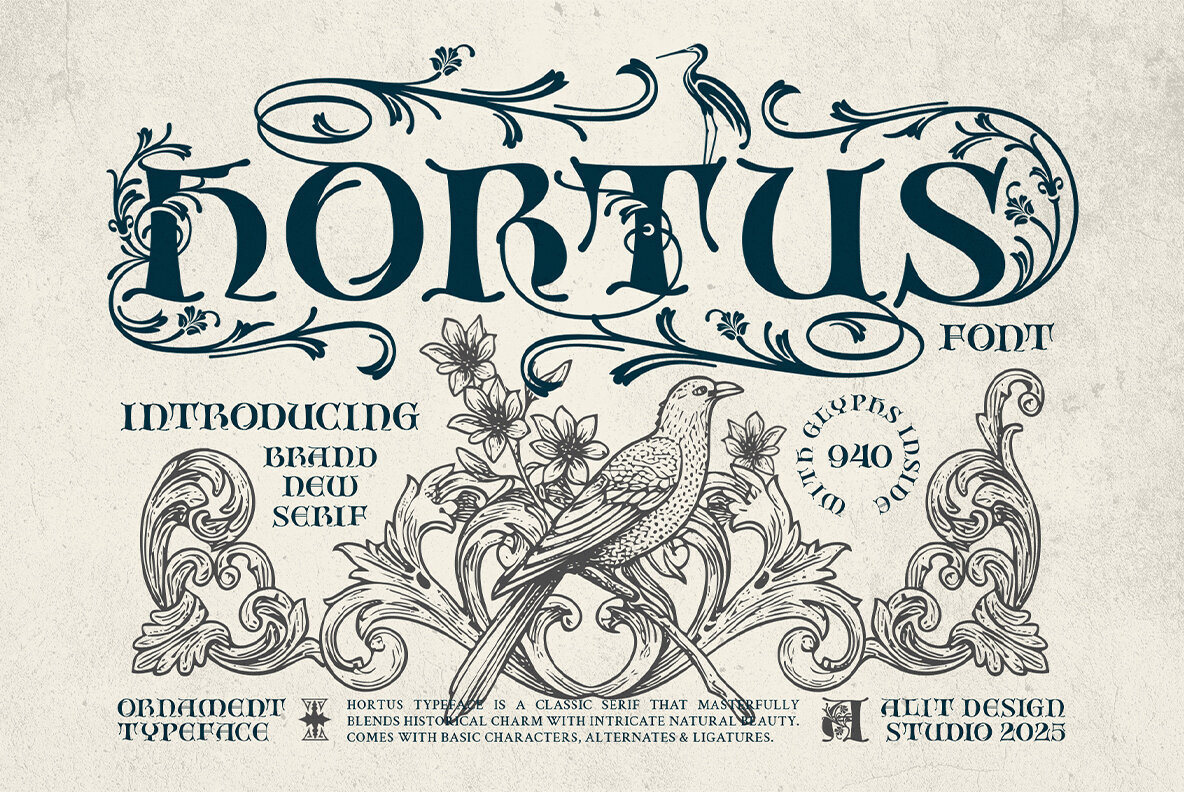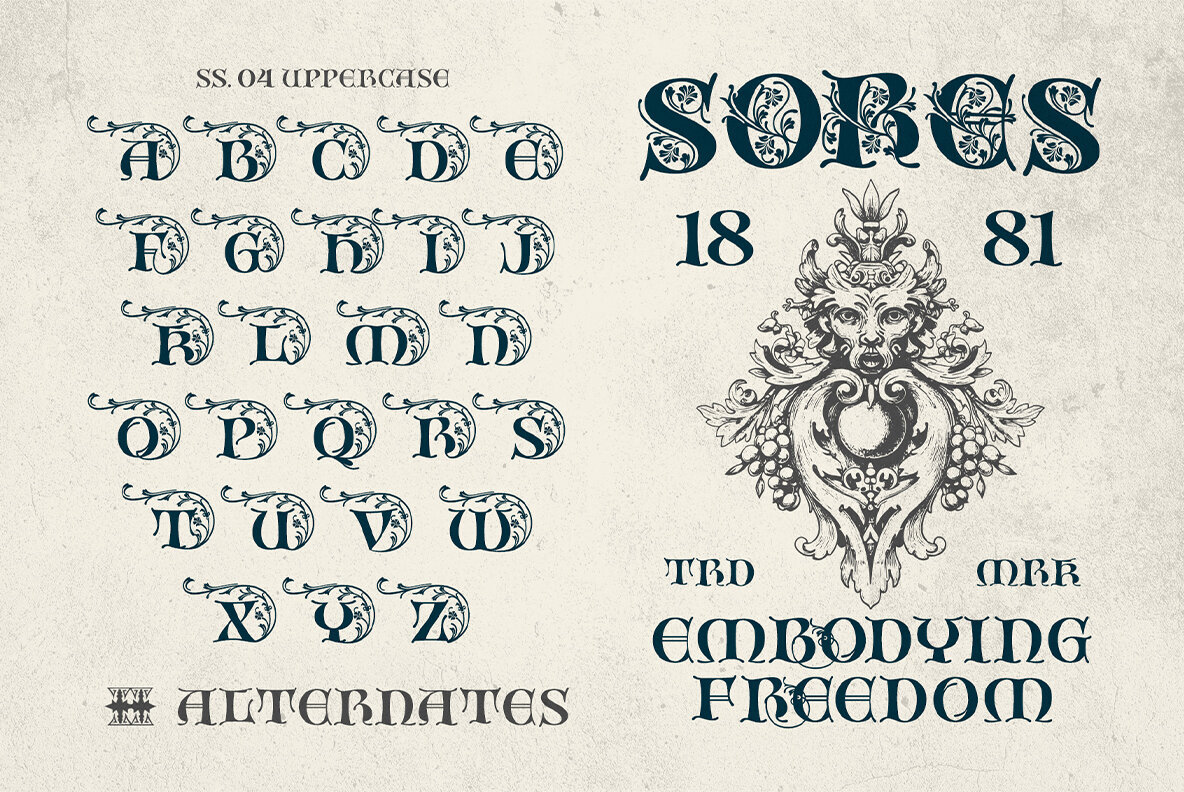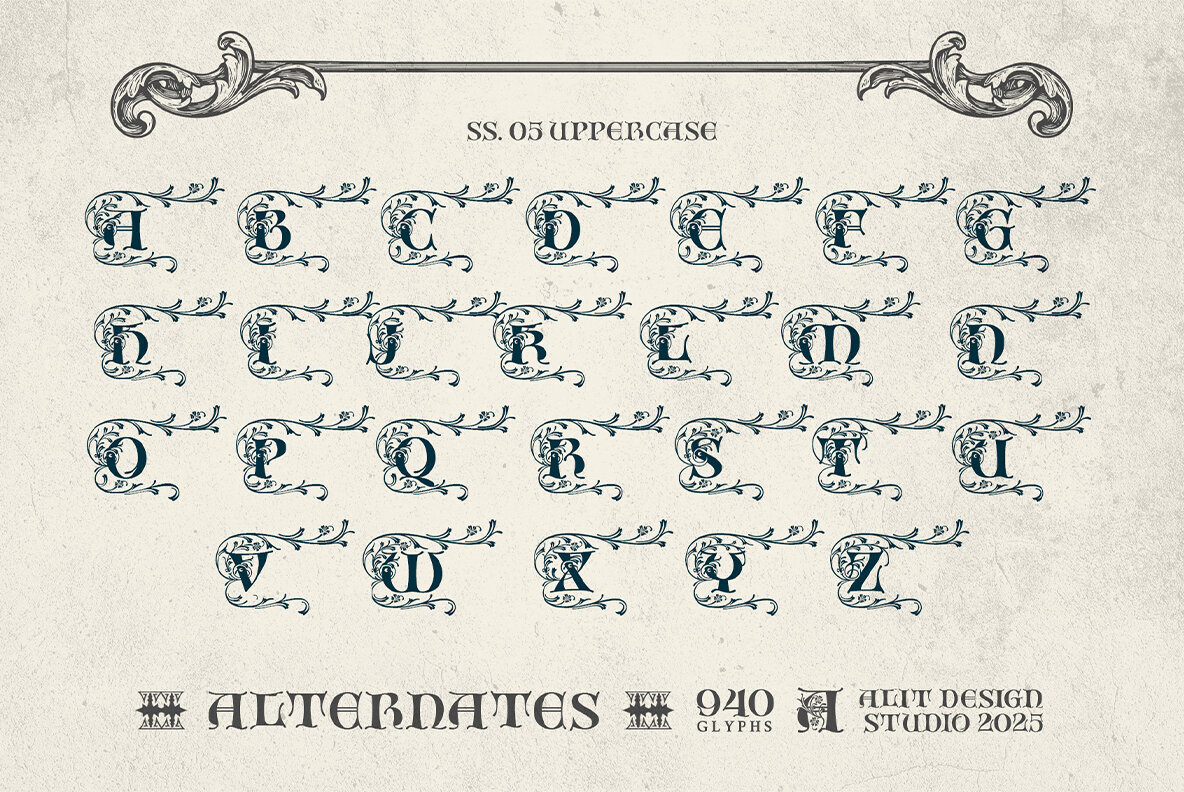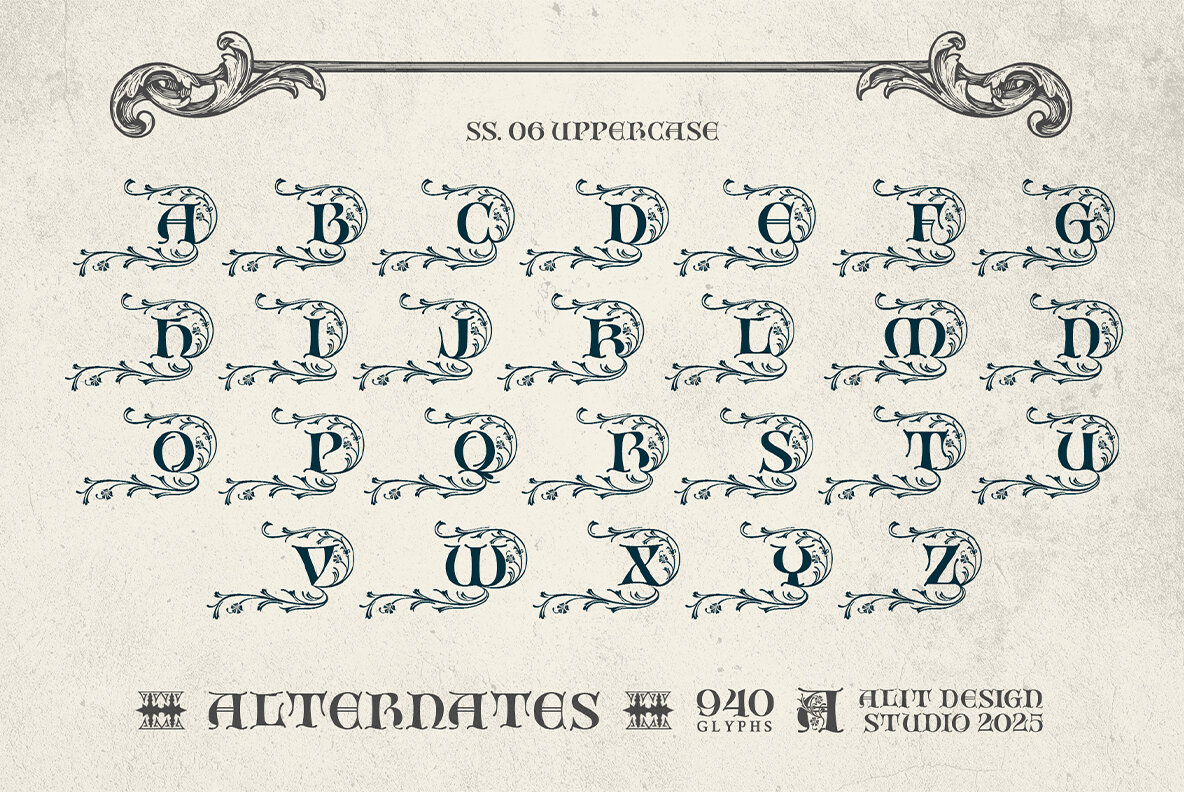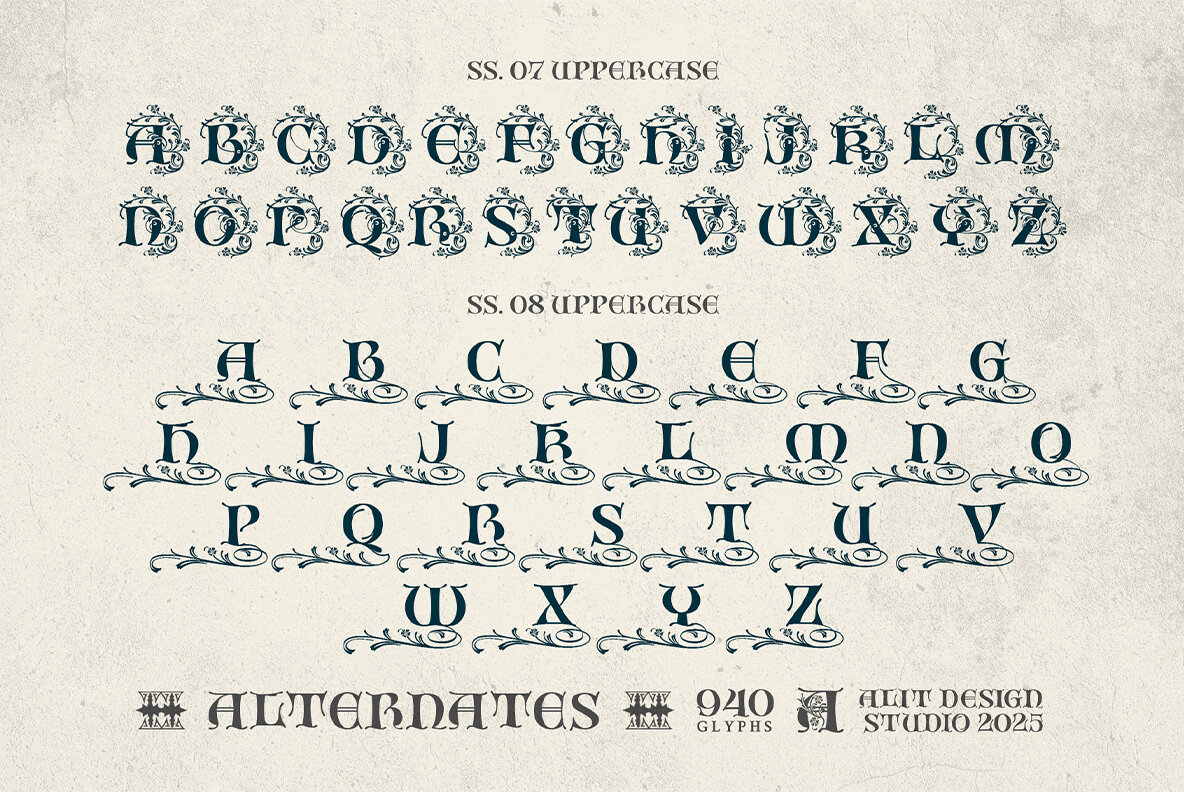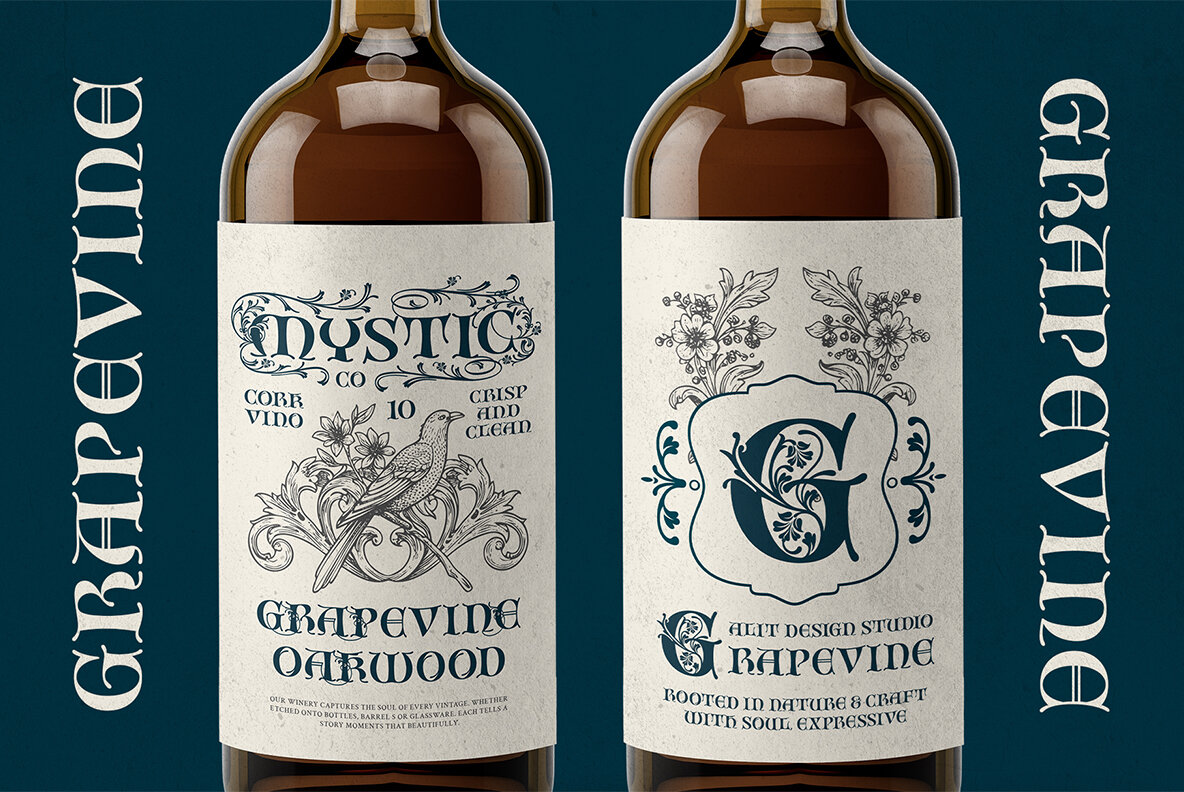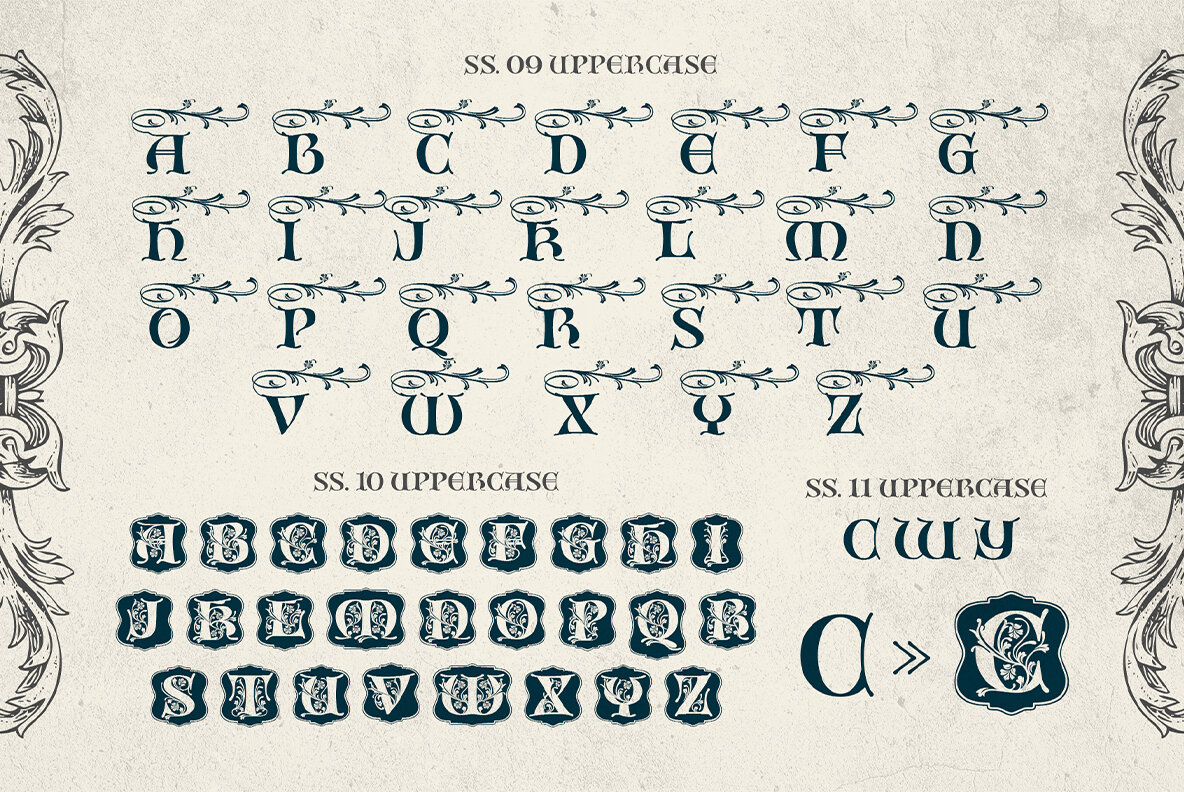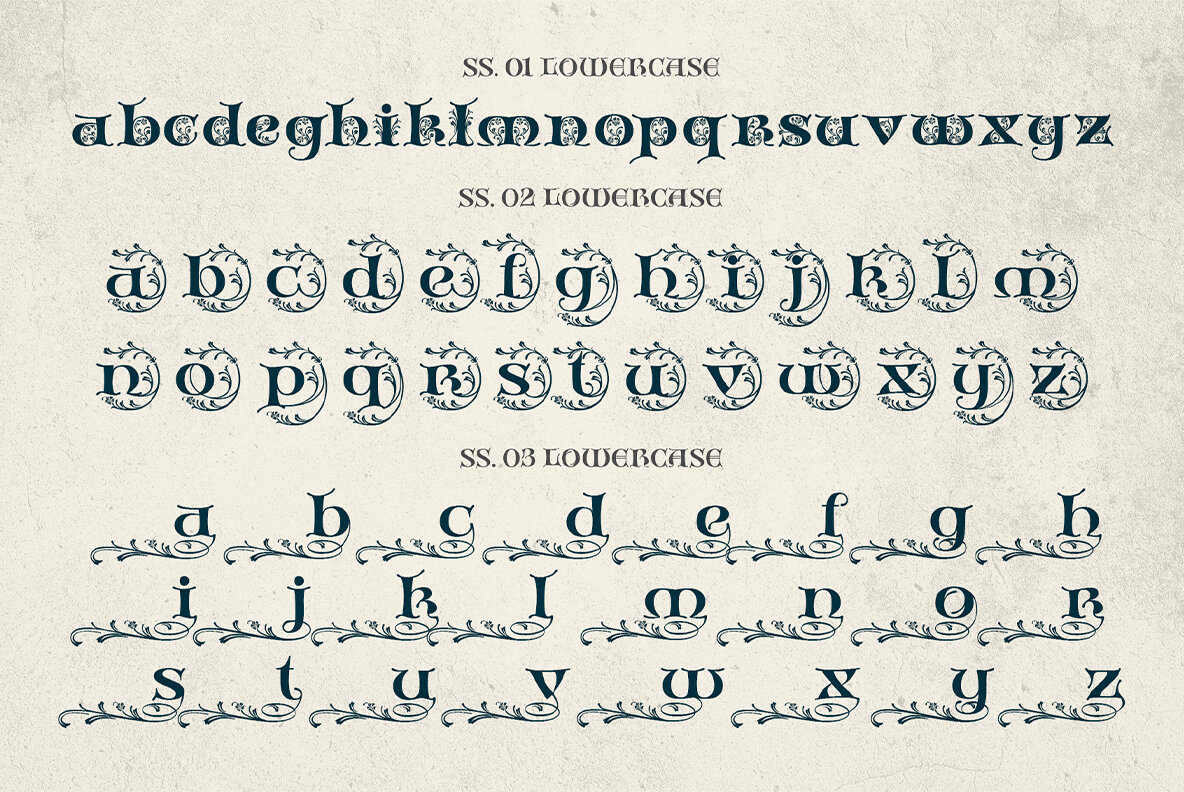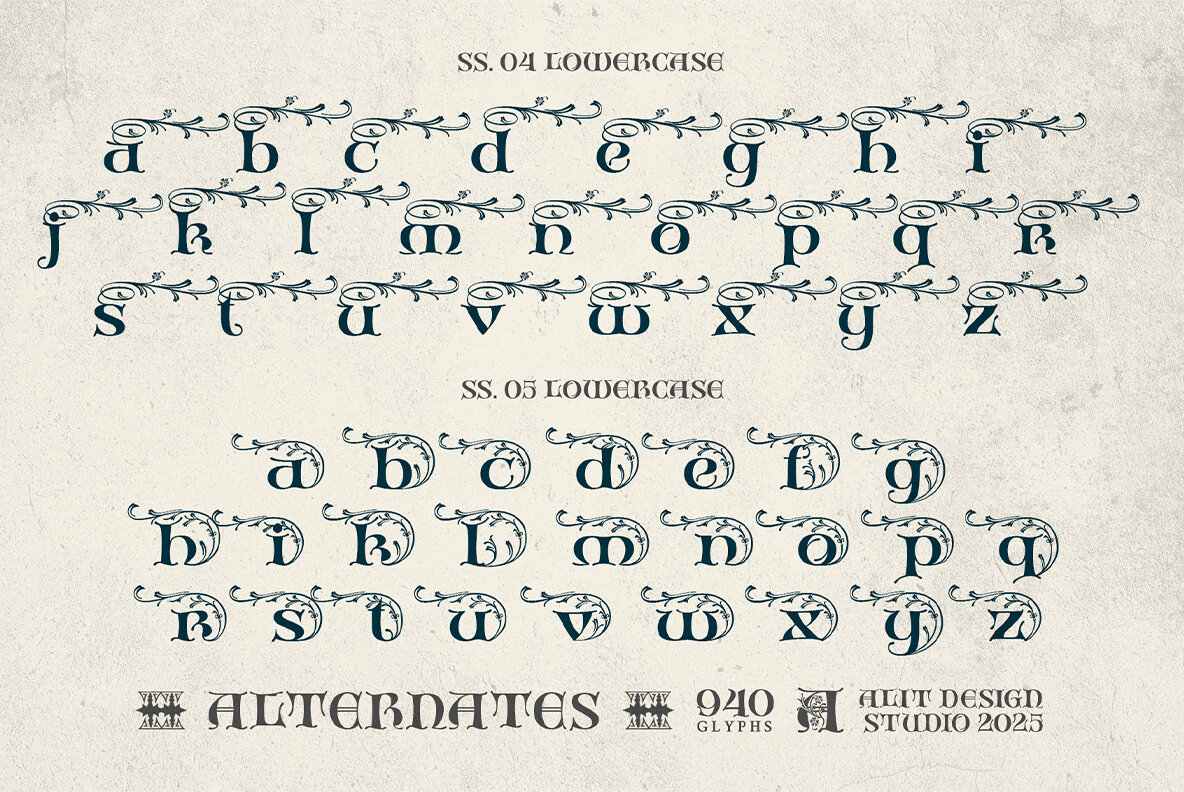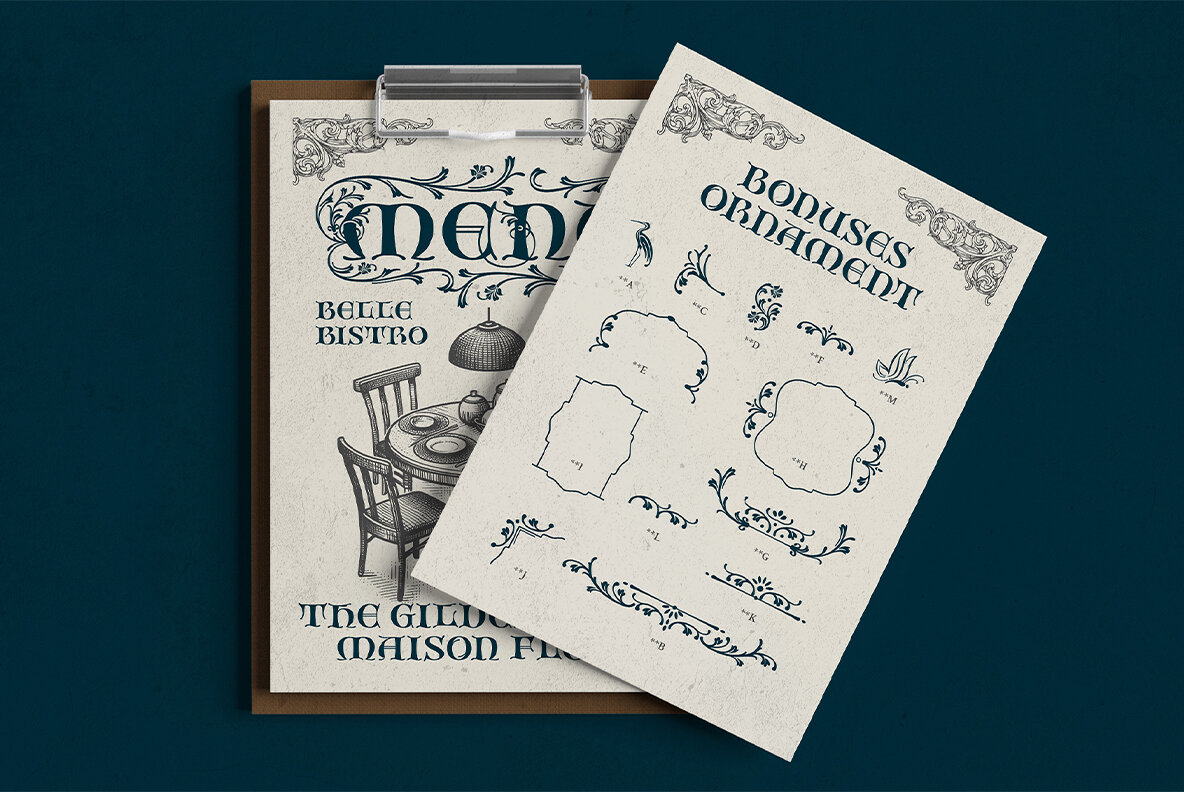
Hortus Font
Hortus Regular
Discover the timeless allure of Hortus, an exquisite decorative typeface steeped in classical European and Greco-Roman artistry. Inspired by ancient stonework, lush botanical illustrations, and ornate texts, Hortus seamlessly merges historical elegance with intricate natural motifs. This typeface offers more than mere characters; it is a comprehensive design toolkit for creating lush and artistic works. With its strong and legible foundation, Hortus blossoms into an extraordinary array of alternates. Dive into a spectrum of letters adorned with floral motifs and characters embellished with flowing swashes, offering a unique touch to every text. Featuring over 940 glyphs, including extensive stylistic sets, ligatures, and special symbols, the creative possibilities are boundless. Whether crafting intricate monograms, designing opulent packaging, enchanting book covers, or refining your branding—Hortus elevates the artistry. Features: The Hortus Typeface cultivates the seeds of your next masterpiece, ensuring your creations resonate with a beauty that transcends time.Hortus Typeface: A Symphony of Classical Elegance